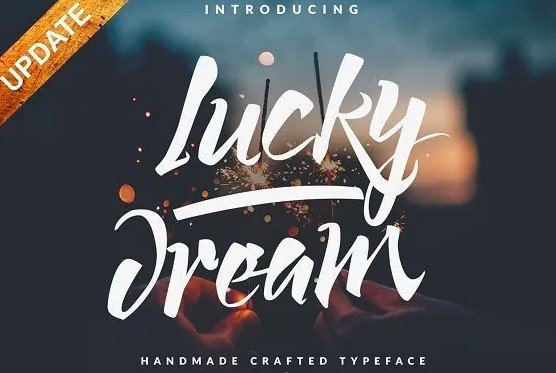
Hey there, today we are bringing the cool designed typeface that is Lucky Dream Script Font which has awesome and unique designs that will give you amazing popularity by making your designs the top-rated and favorite to the users.
It was designed by Putra Khan Studio. Who is one that created and shared this typeface among the graphic designers to use and makes the premium designs just with the help of this font.